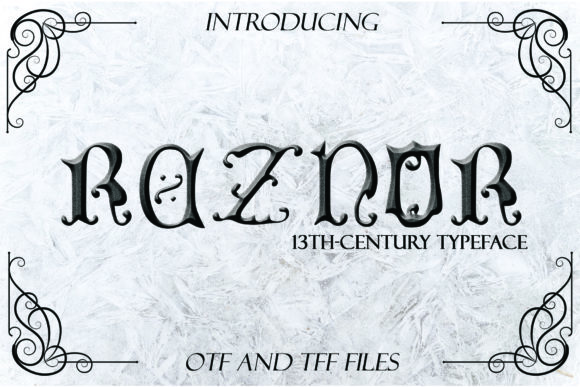
Prepare to be mesmerized by Reznor, a 13th-century blackletter typeface that exudes an alluring charm, perfect for any design project in search of a touch of medieval mystique. Its intricate strokes, reminiscent of ancient manuscripts, will transport your designs to a bygone era while captivating your audience with its timeless allure.
Reznor's origins lie in the depths of history, where it was meticulously handcrafted to add a personal touch to any creation. Each letterform is a work of art, carefully designed to evoke the spirit of medieval scribes, infusing your designs with a sense of authenticity and history.
Whether you're crafting logos that demand attention, headlines that command respect, or invitations that ignite a spark of curiosity, Reznor is your font of choice. Its versatility knows no bounds, making it the perfect companion for both digital and print designs.
But beyond its versatility and historical charm, Reznor possesses an emotional depth that will resonate with your audience. Its unique character adds a touch of sophistication to any project, inviting viewers to delve deeper into your creations, eager to discover the stories that unfold within.
With Reznor, you're not just downloading a font; you're acquiring a timeless treasure that will elevate your designs to new heights. Its enchanting aura will captivate your audience, leaving an unforgettable impression that will linger long after they've encountered your creation.